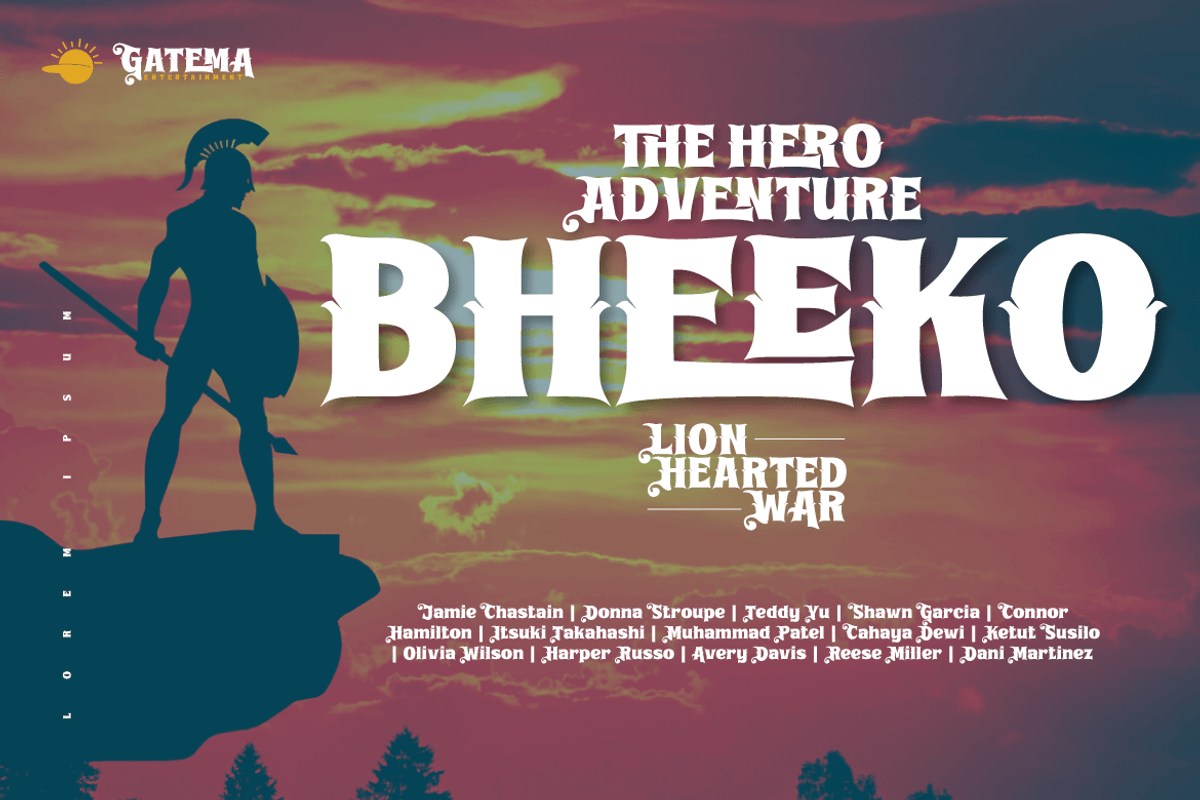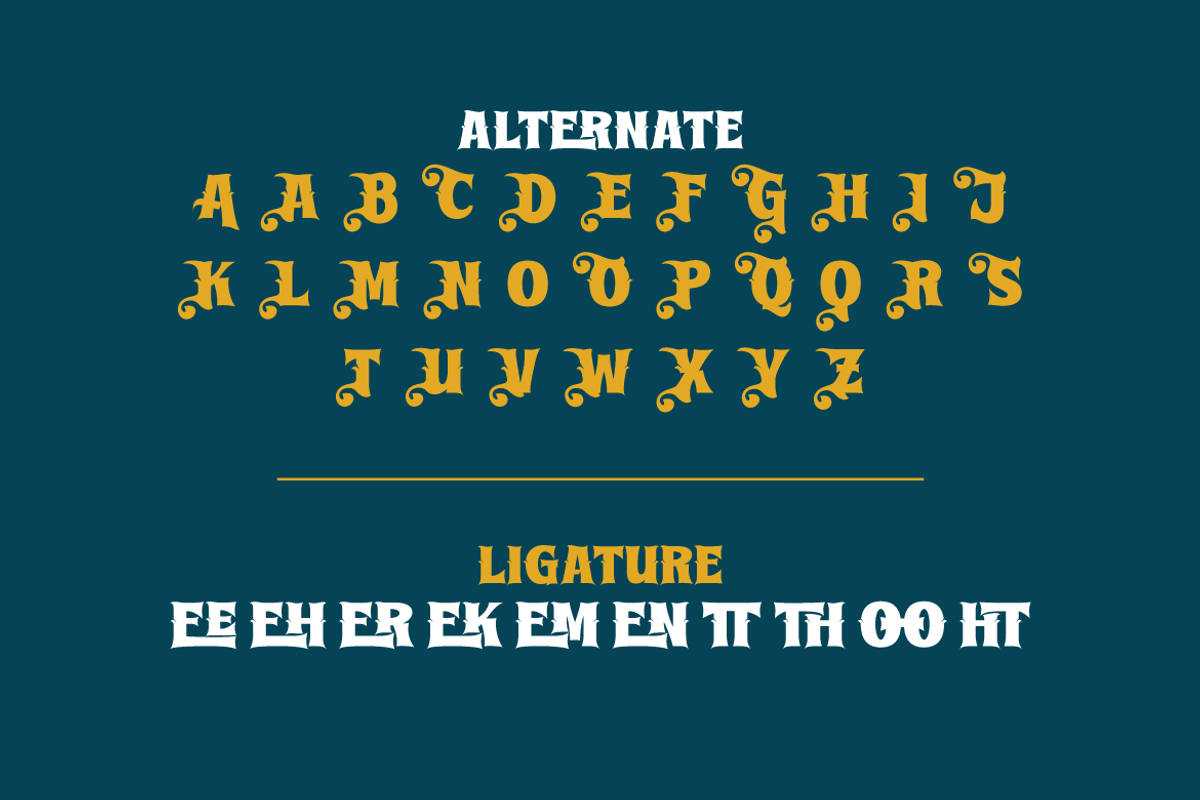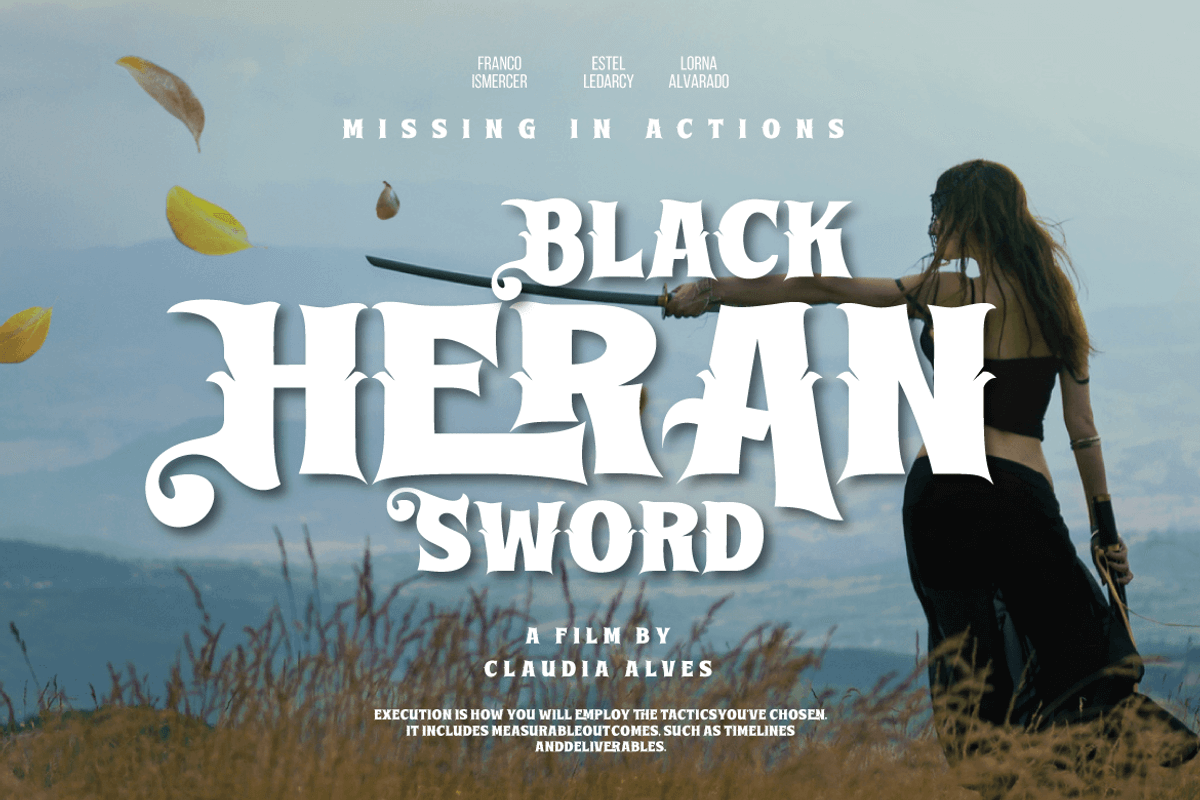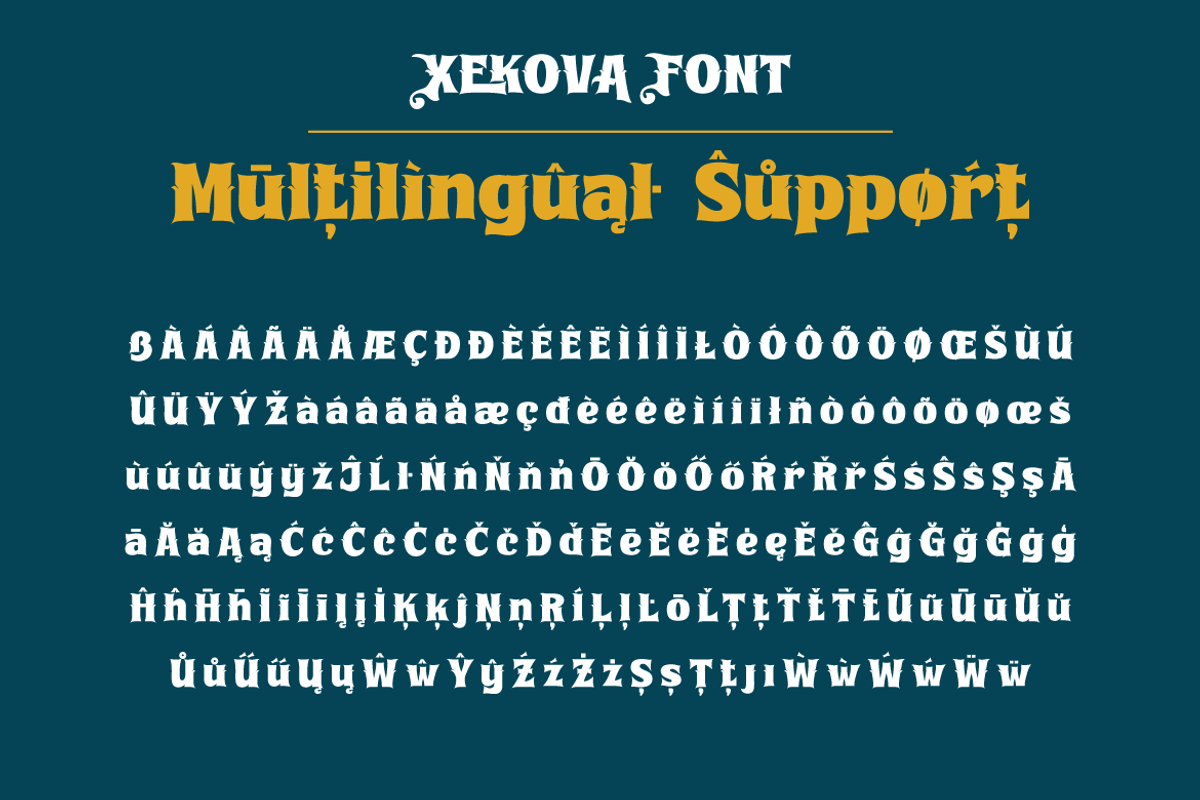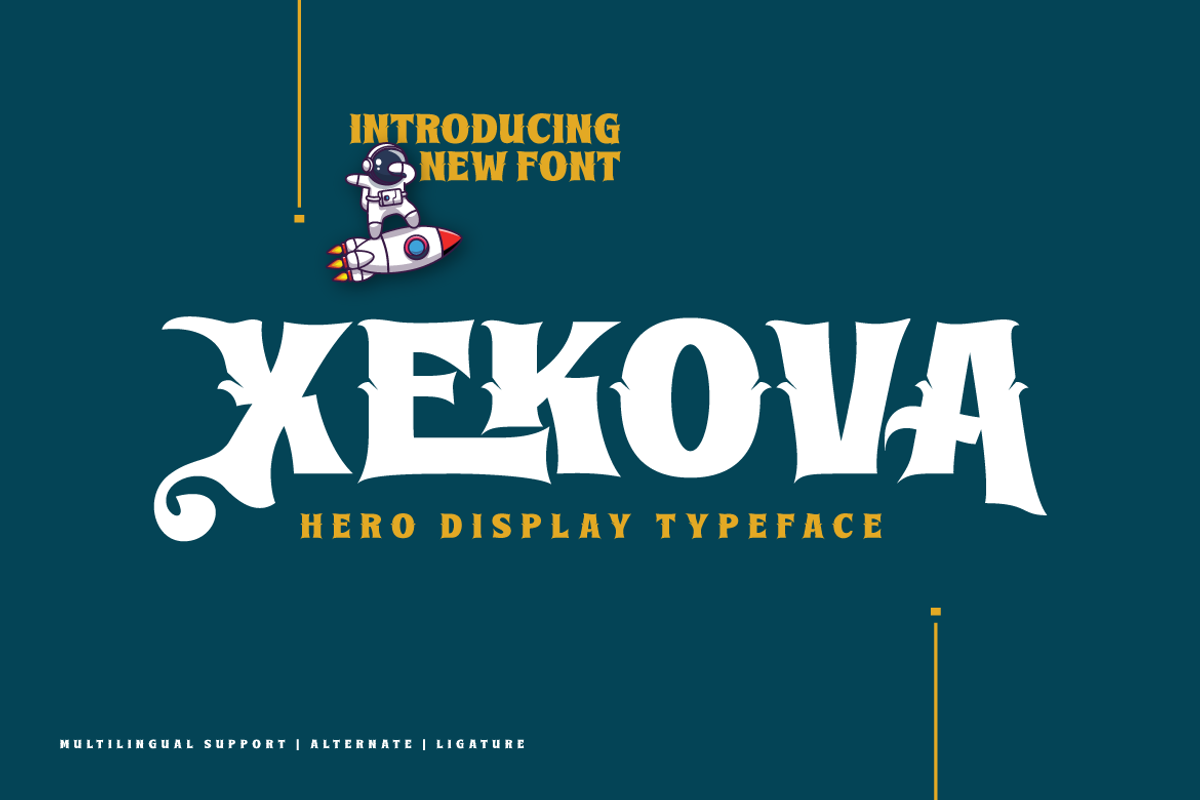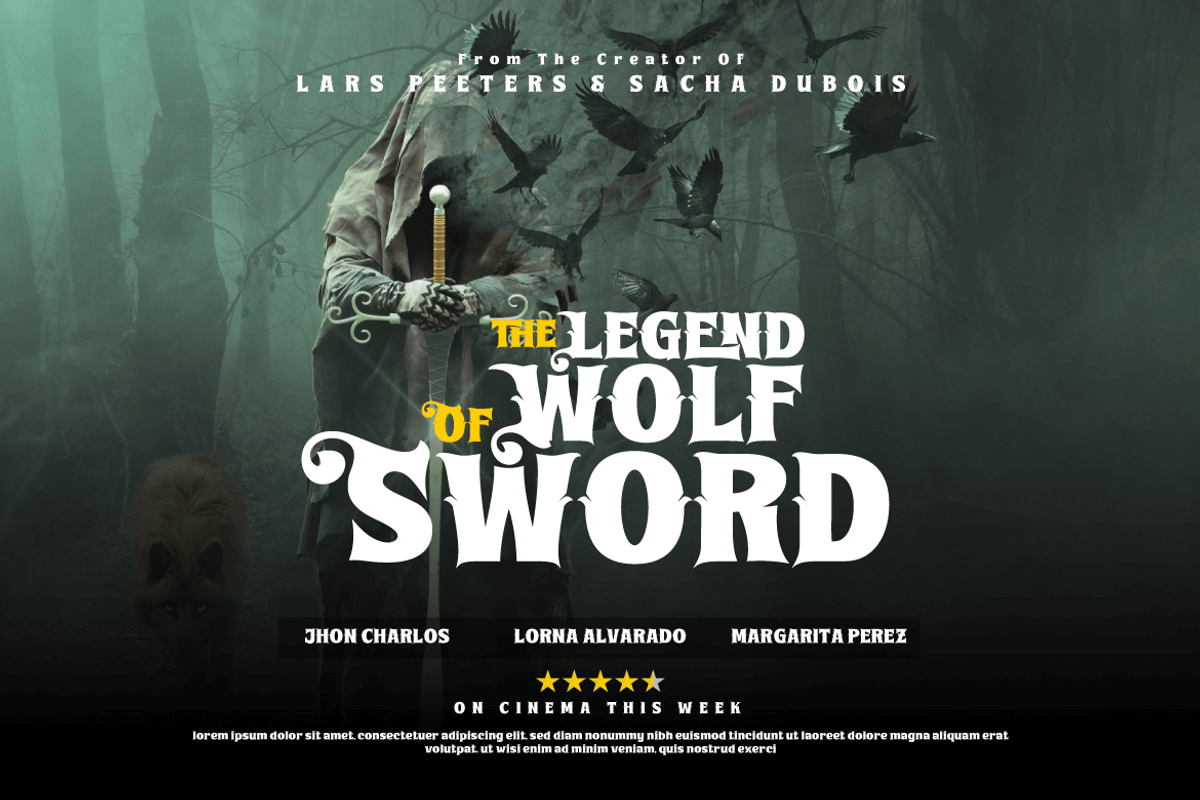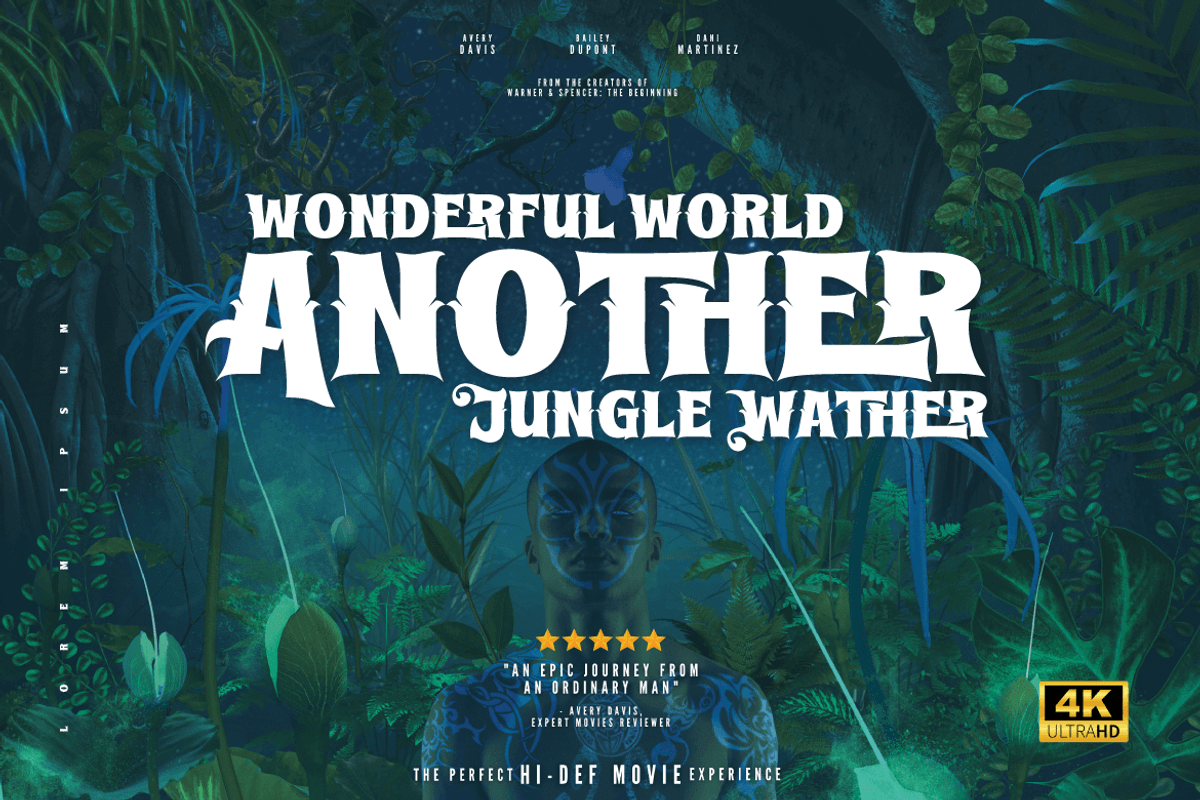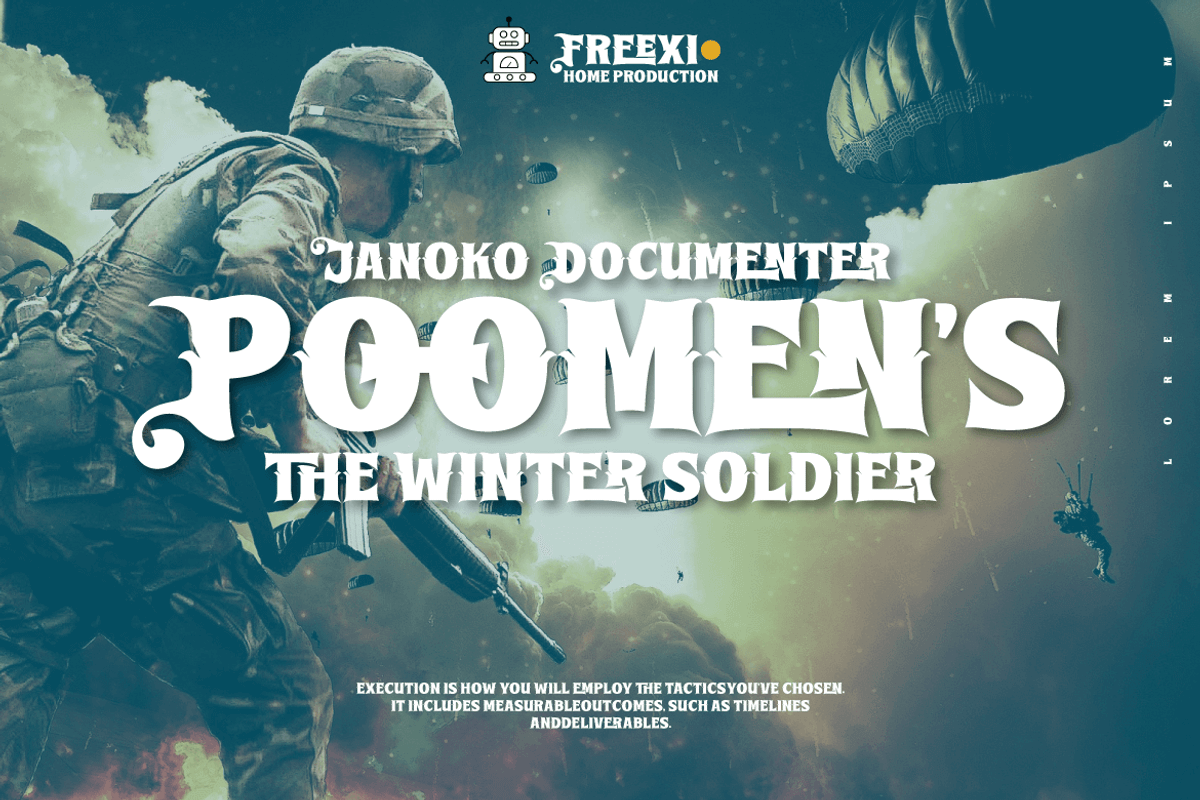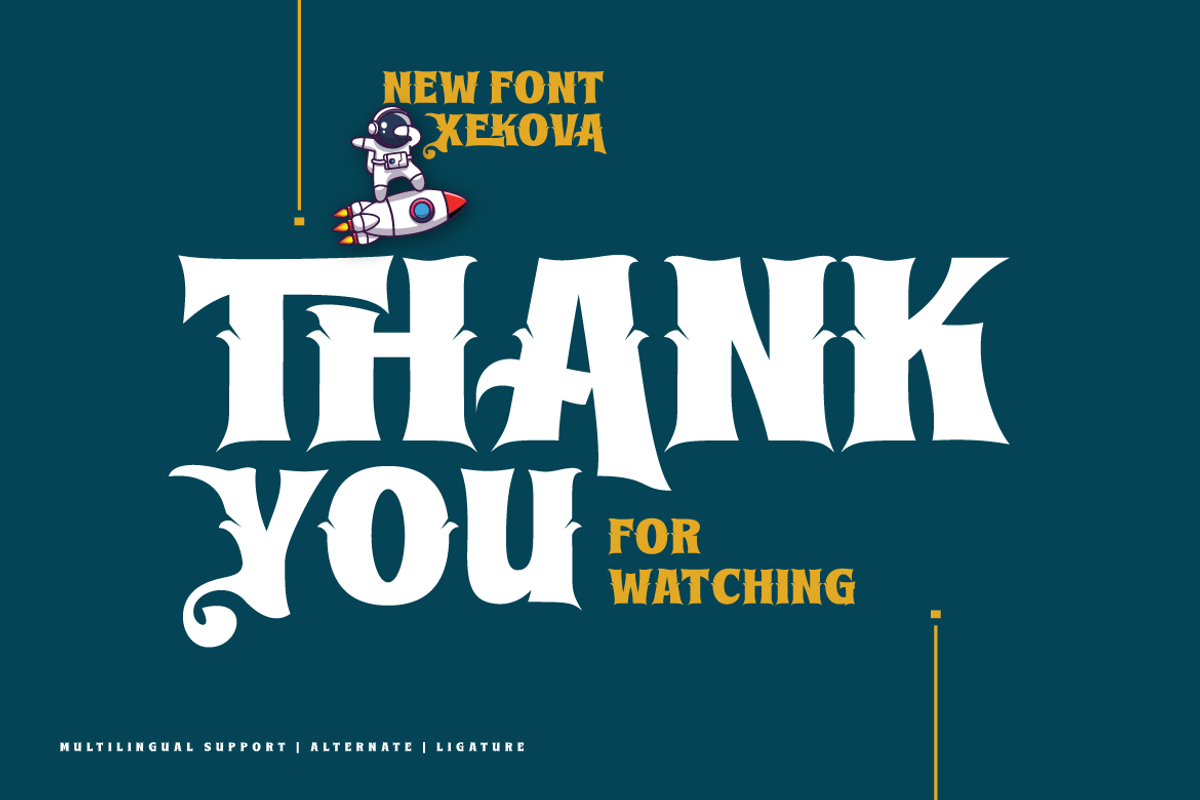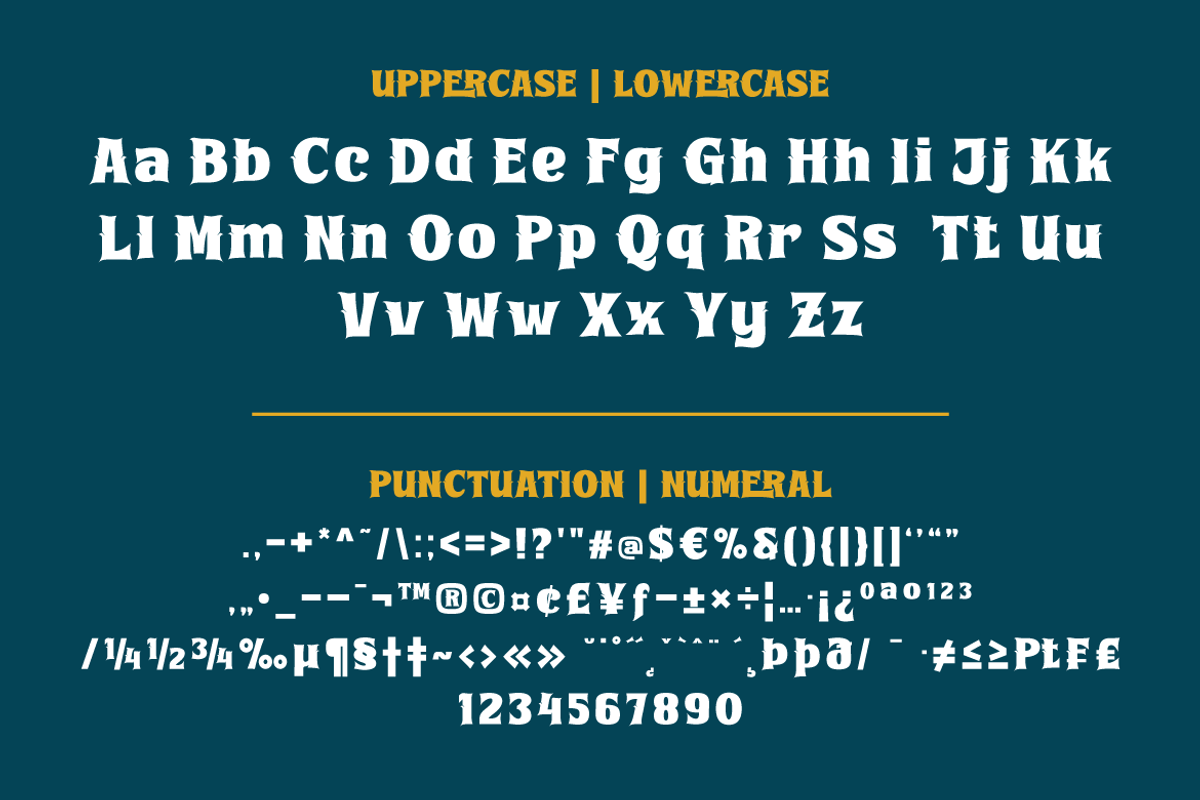
Xekova – Display Hero Font
Xekova Typeface is a modern font with an artistic and elegant touch. This typeface can be used for various purposes such as Films, Titles, Magazines, Posters, Logos, and many more. Experienced designers will love the extra touches that make Xekova unique, the elegant and unique blend of fasteners, subtle curves, sheer shapes, and elegant circular pins to bring your project out of the ordinary. With this extraordinary typeface, your next design will stand out from the rest!